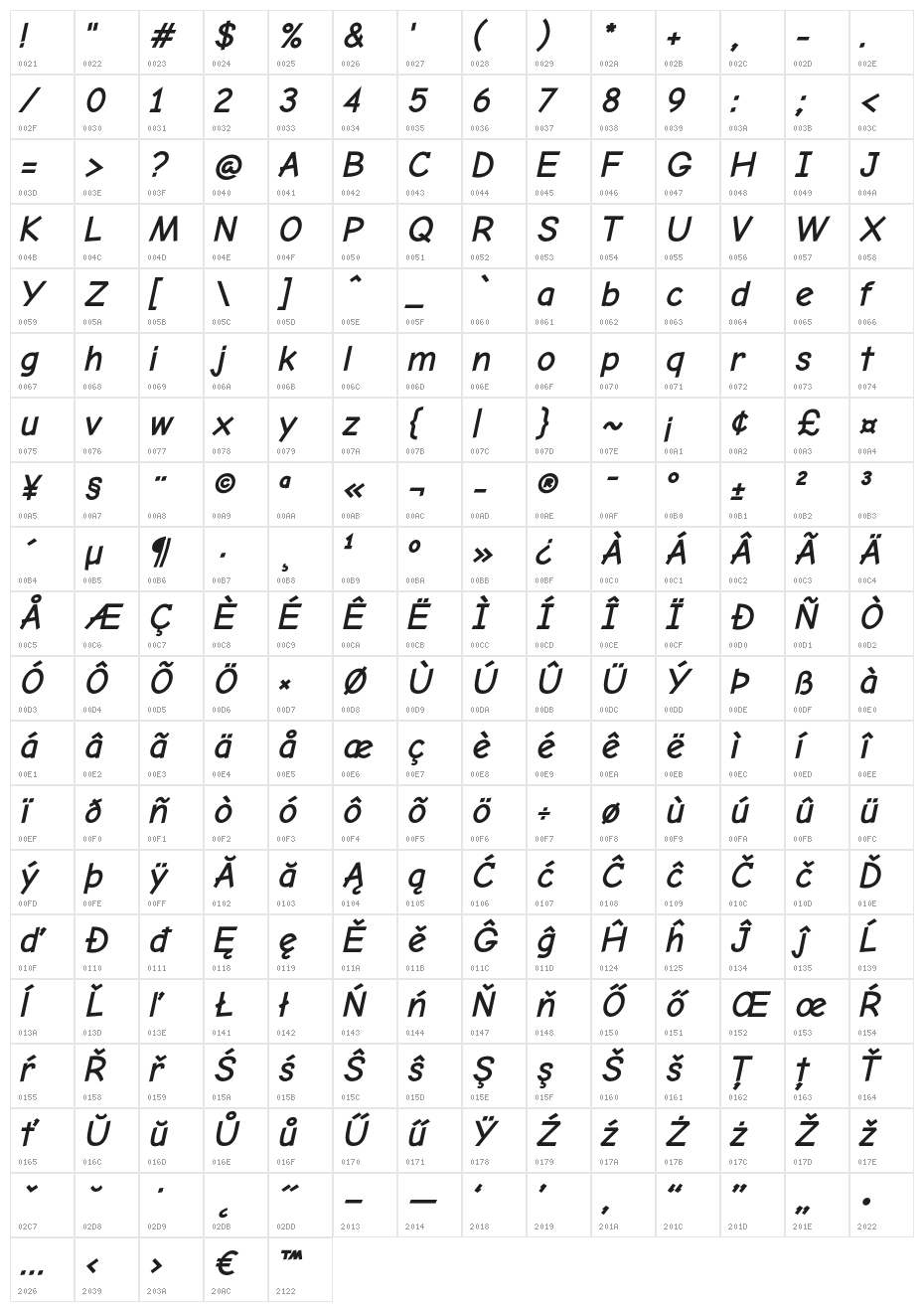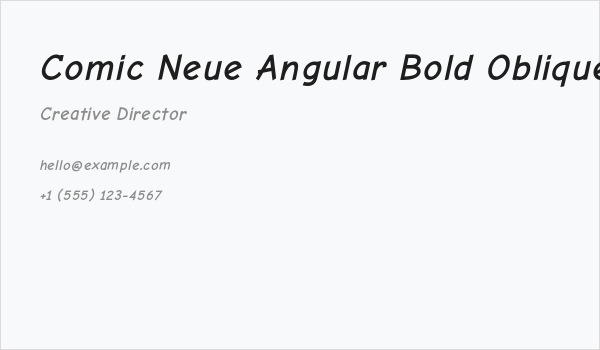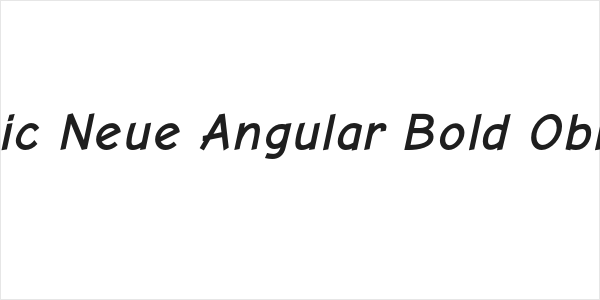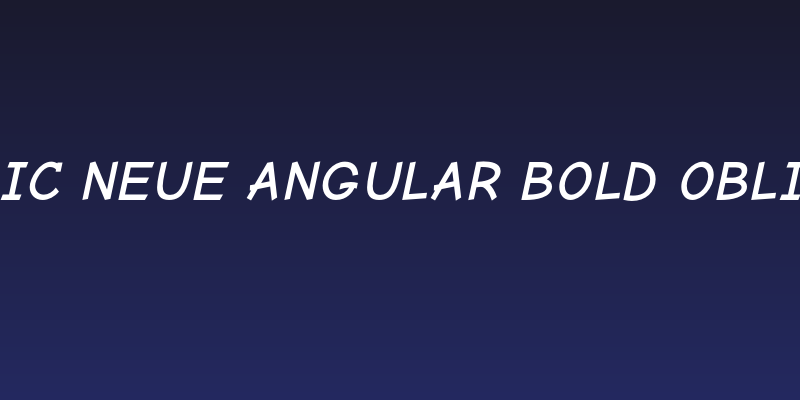
Comic Neue Angular Bold Oblique Font
Comic Neue Angular Bold Oblique Description
This font features a playful and modern design with a slightly angular and oblique style. The characters are bold, giving them a strong presence, while the slanted orientation adds a dynamic feel. The font maintains a clean and legible appearance, making it suitable for a variety of uses. The strokes are consistent in weight, providing a uniform look across all characters. The spacing between characters is normal, ensuring readability without appearing cramped. Overall, this font combines a casual aesthetic with a professional touch, making it versatile for both informal and formal applications.
| Proposed Projects | Ideal for comic books, children's books, playful branding, and informal presentations. |